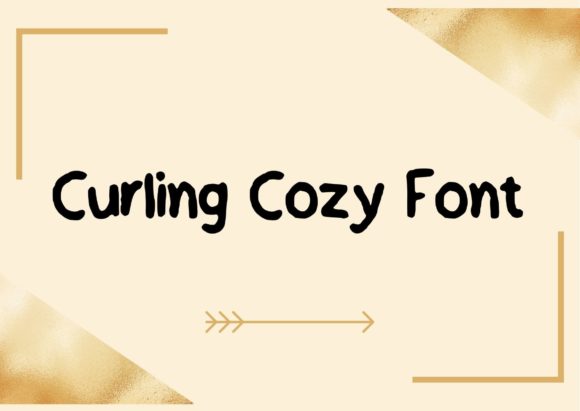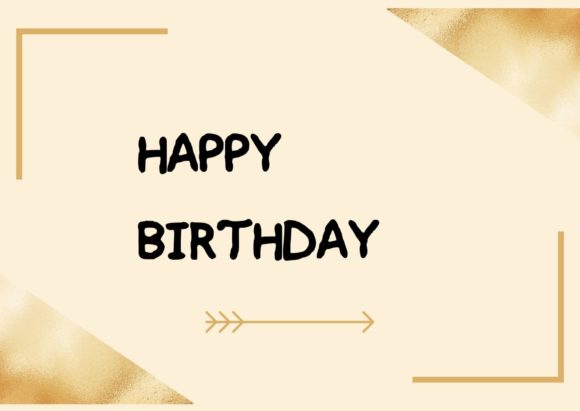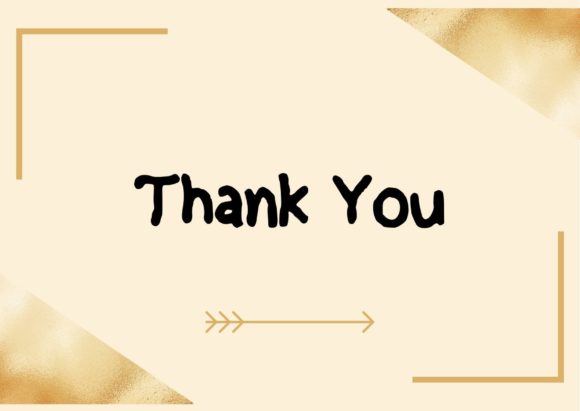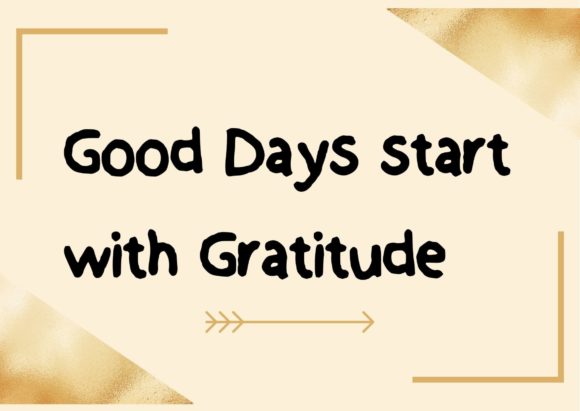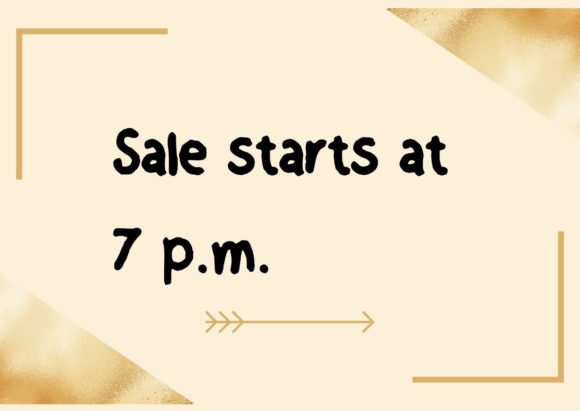
Curling Cozy Font
About Curling Cozy Font
Curling Cozy is a cute and friendly handwritten font. No matter the topic, this font will be an incredible asset to your fonts’ library, as it has the potential to elevate any creation.